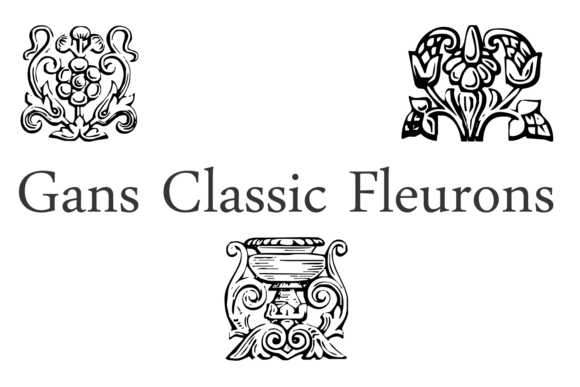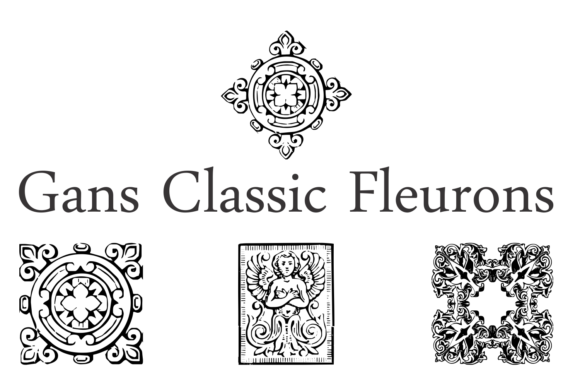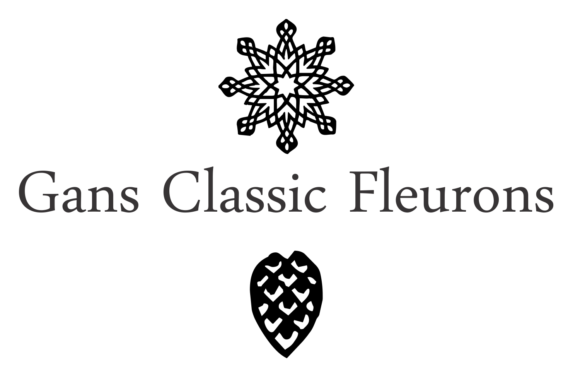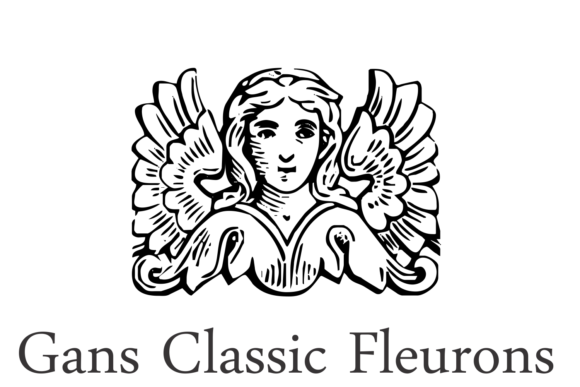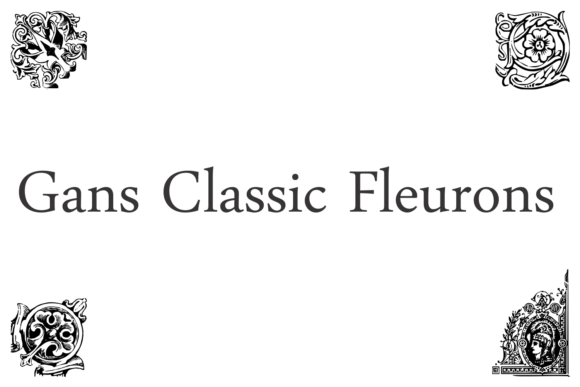
Gans Classic Fleurons Font: Elevate Your Design with Vintage Flair
In the world of typography, few fonts capture the essence of vintage elegance quite like Gans Classic Fleurons. This exquisite dingbat/decorative display font is a treasure trove of flourishes and ornaments, perfect for designers and crafters seeking to infuse their projects with a touch of antique charm.
What is Gans Classic Fleurons?
Gans Classic Fleurons is a unique font that boasts an extensive collection of ornamental elements, meticulously crafted to evoke the classic feel of bygone eras. With its intricate designs and elaborate flourishes, this font is an excellent choice for those looking to add a dash of sophistication and refinement to their work.
Key Features of Gans Classic Fleurons
- Extensive Ornament Collection: Gans Classic Fleurons features a vast array of ornaments, including borders, frames, and decorative elements, allowing you to customize your design to your heart’s content.
- Vintage Antique Feel: The font’s classic design and intricate details evoke the nostalgia of a bygone era, making it perfect for projects that require a touch of vintage flair.
- Dingbat/Decorative Display Font: As a dingbat/decorative display font, Gans Classic Fleurons is specifically designed to make a statement, adding a level of elegance and sophistication to your design.
- Ease of Use: Despite its intricate designs, Gans Classic Fleurons is surprisingly easy to use, making it accessible to designers and crafters of all skill levels.
Gans Classic Fleurons is a versatile font that can be used in a wide range of design projects, from:
- Stationery and Invitations: Add a touch of vintage elegance to your wedding invitations, greeting cards, and other stationery.
- Branding and Packaging: Use Gans Classic Fleurons to create eye-catching logos, labels, and packaging that stands out from the crowd.
- Web Design: Elevate your website’s design with the font’s intricate flourishes and ornaments, creating a unique and memorable user experience.
- Crafting and Scrapbooking: Incorporate Gans Classic Fleurons into your scrapbooking and crafting projects, adding a touch of classic charm to your creations.
Tips for Using Gans Classic Fleurons
To get the most out of Gans Classic Fleurons, consider the following tips:
- Mix and Match: Experiment with different ornament combinations to create a unique look that reflects your design style.
- Balance is Key: Use the font’s ornaments and flourishes judiciously, balancing them with simpler design elements to avoid overwhelming your design.
- Play with Size and Color: Don’t be afraid to experiment with different sizes and colors to add depth and visual interest to your design.
Gans Classic Fleurons is a true gem in the world of typography, offering designers and crafters a unique opportunity to add a touch of vintage elegance to their work. With its extensive collection of ornaments and flourishes, this font is sure to elevate your design and leave a lasting impression on your audience. So why wait? Discover the beauty of Gans Classic Fleurons and unlock a world of creative possibilities.